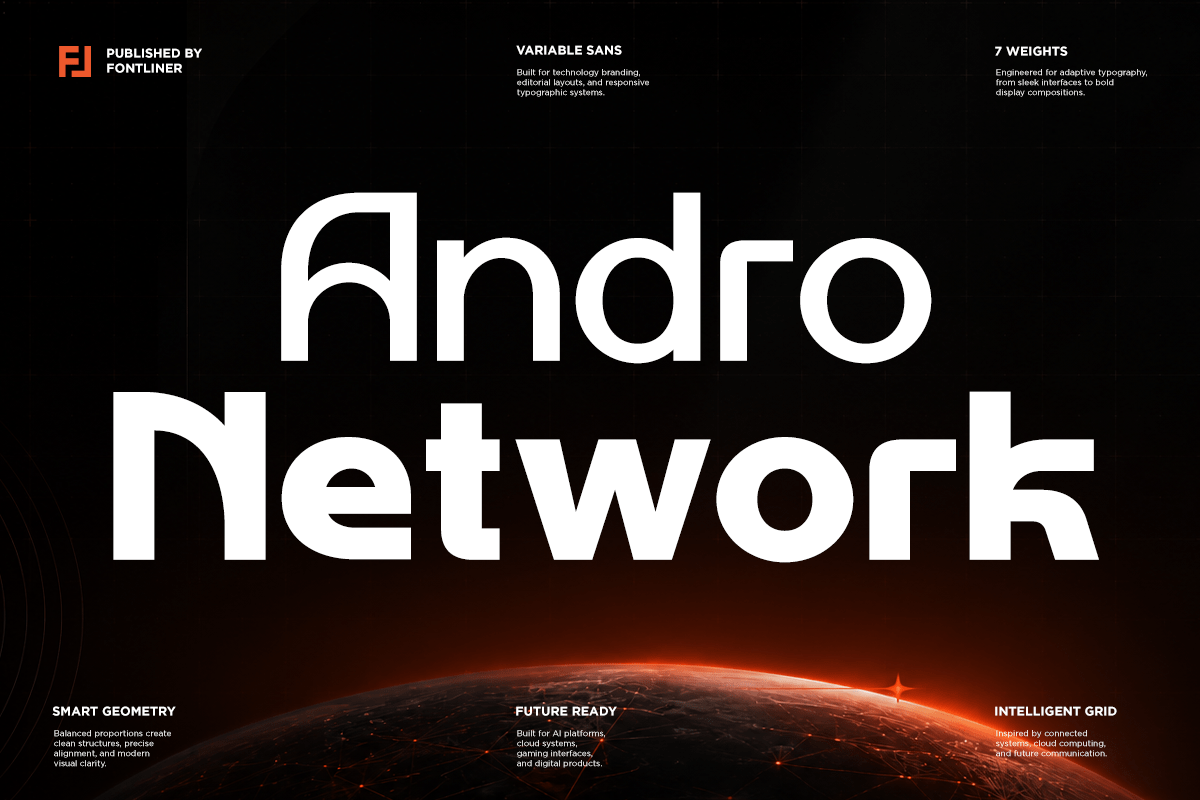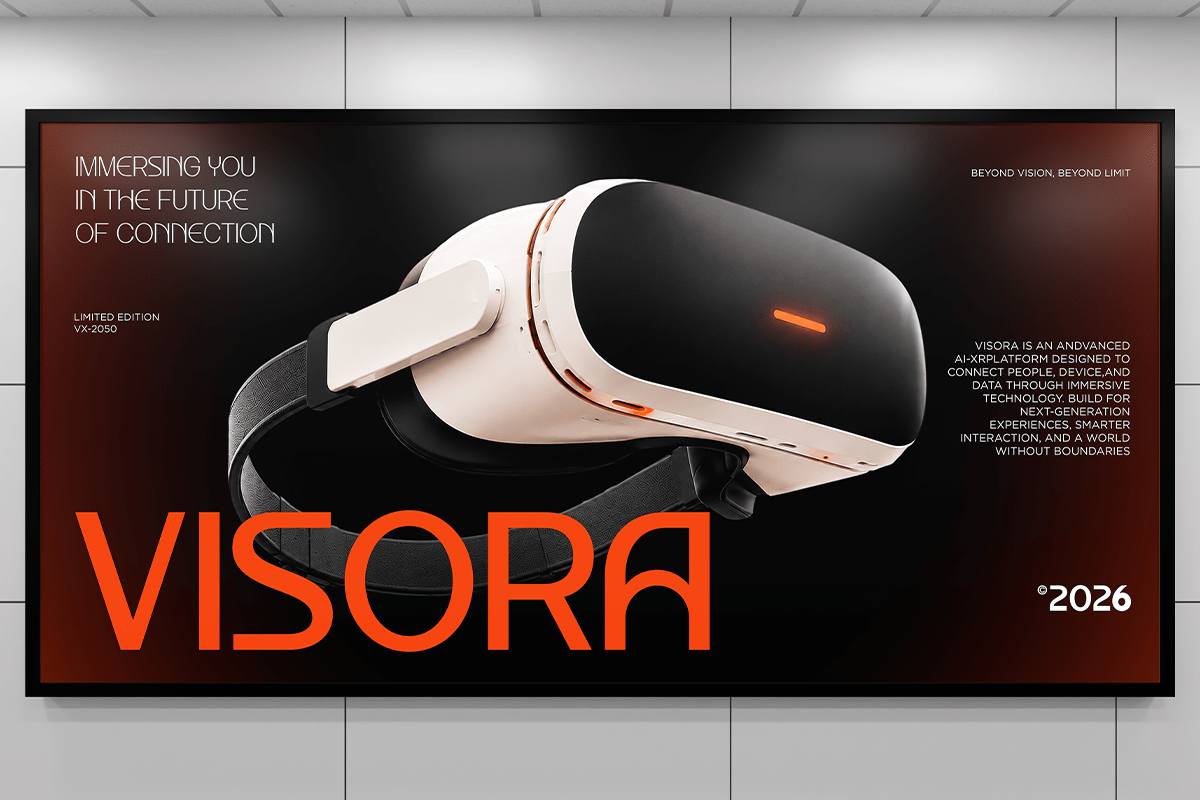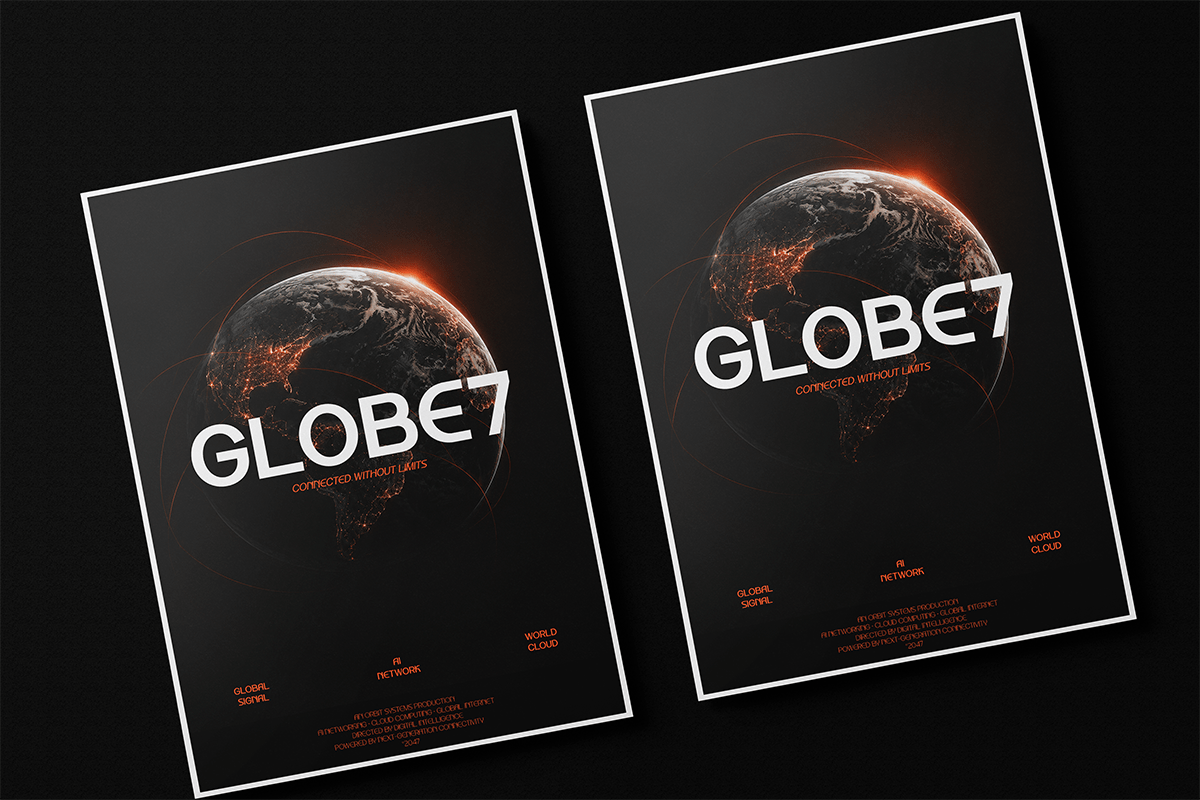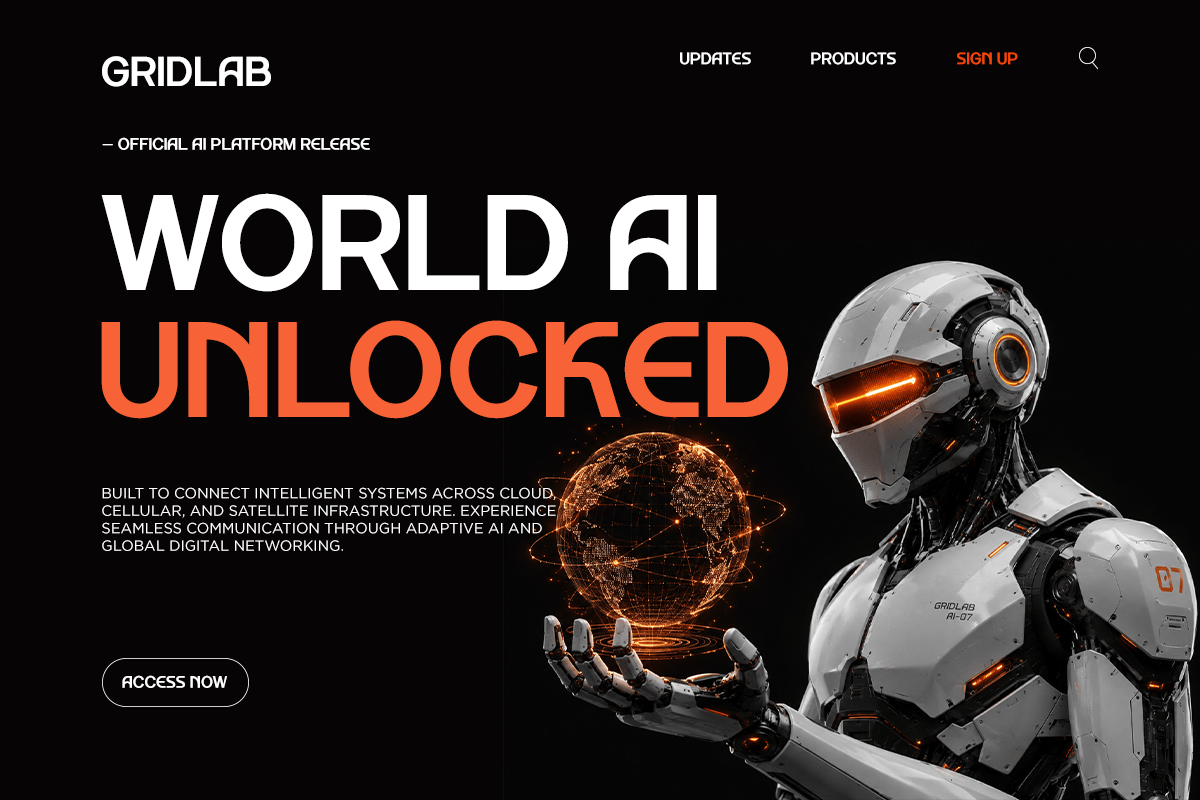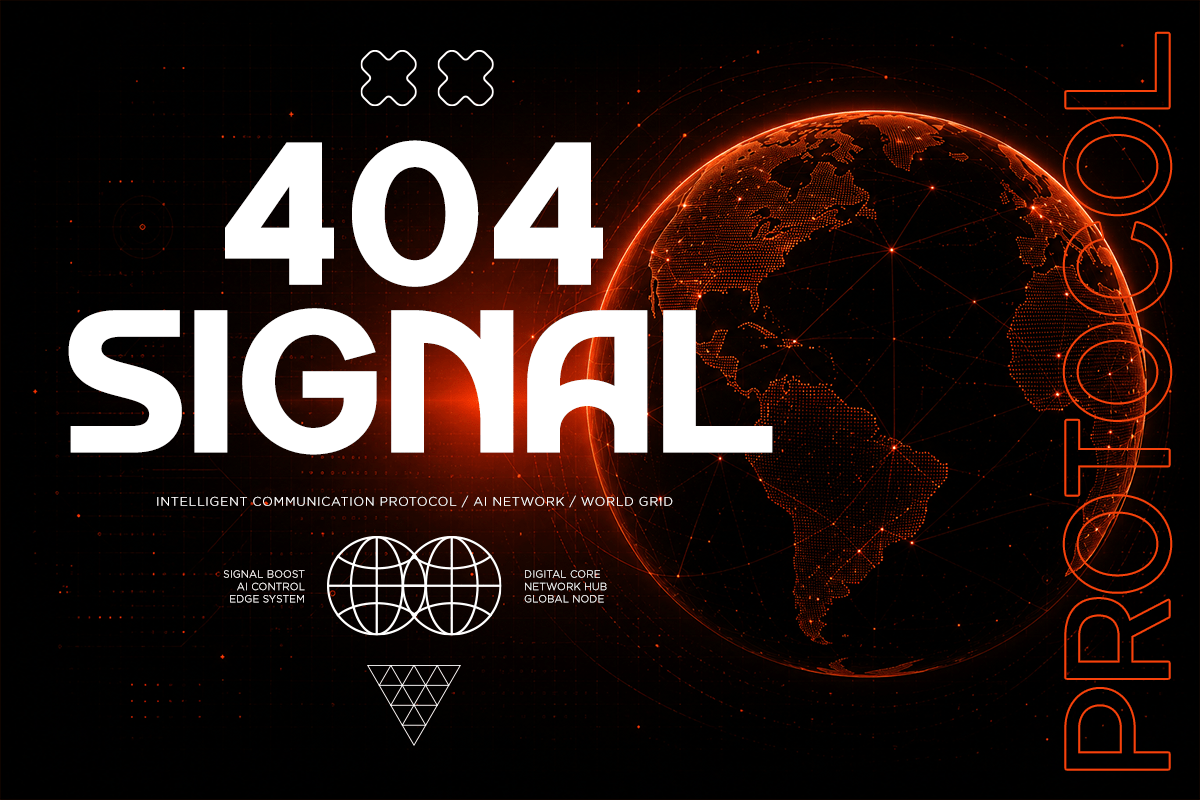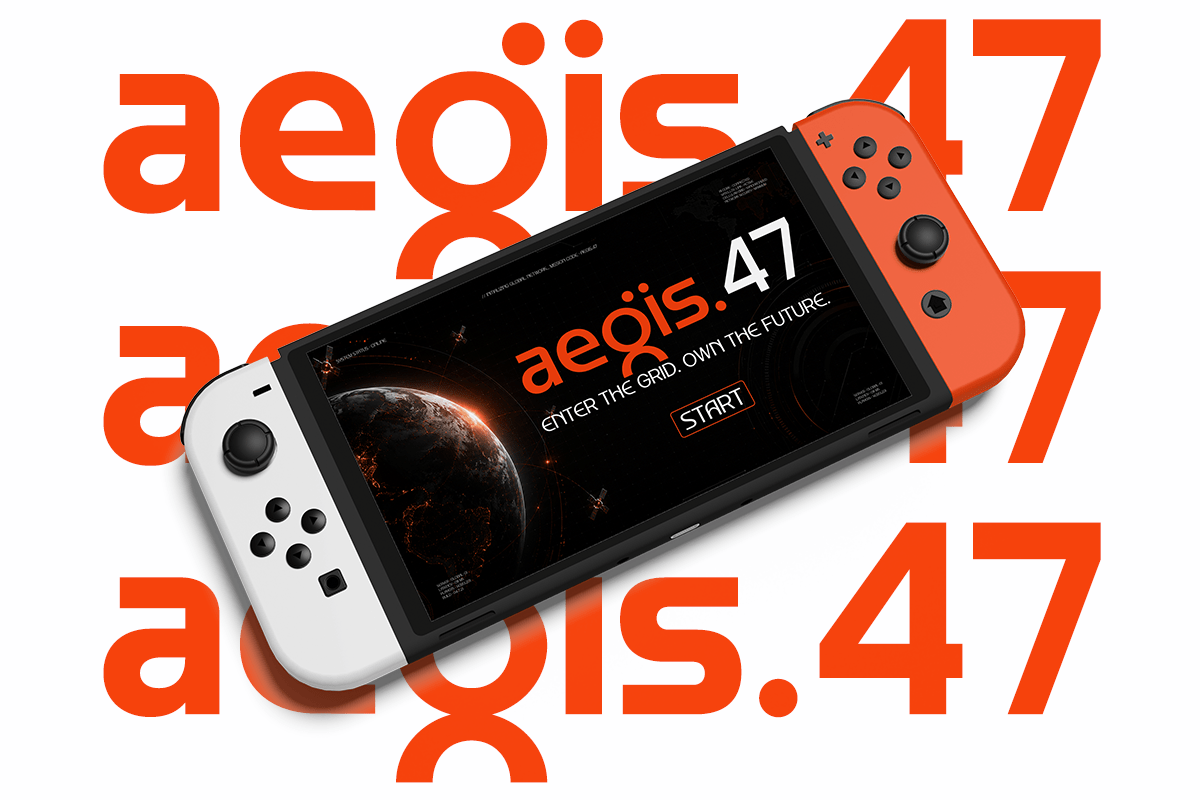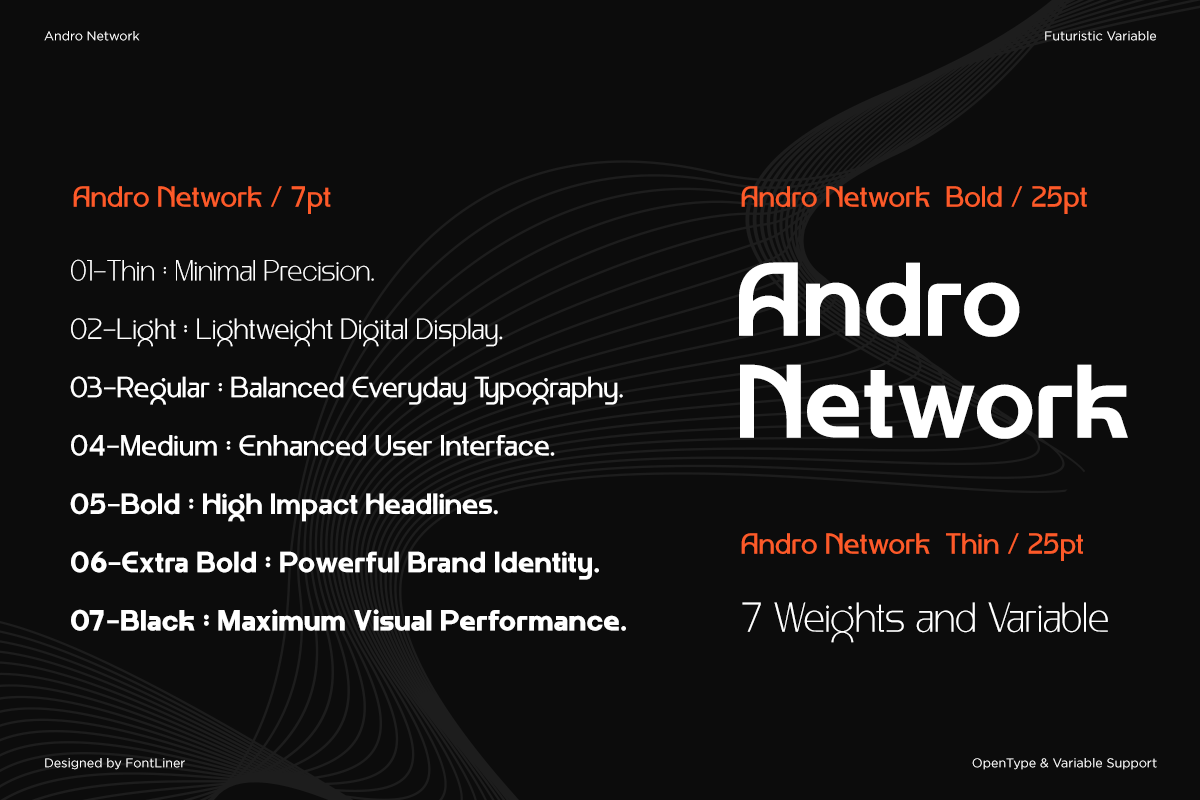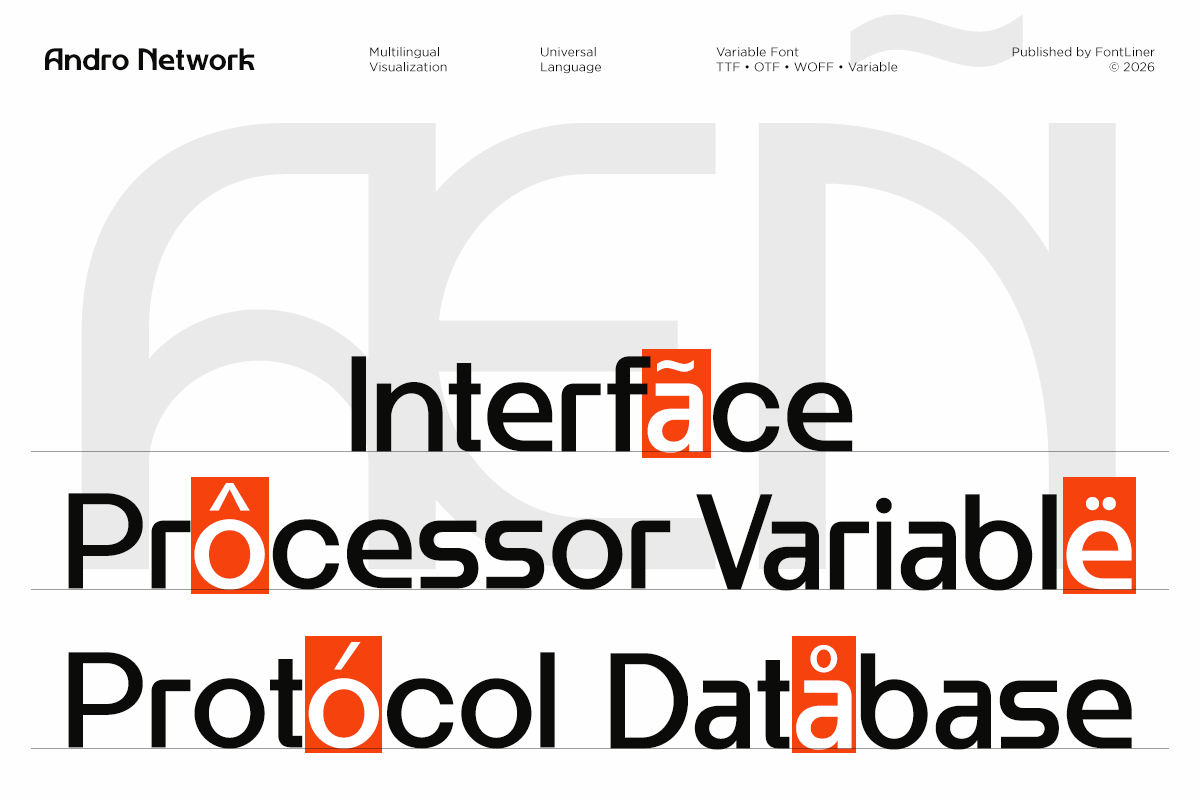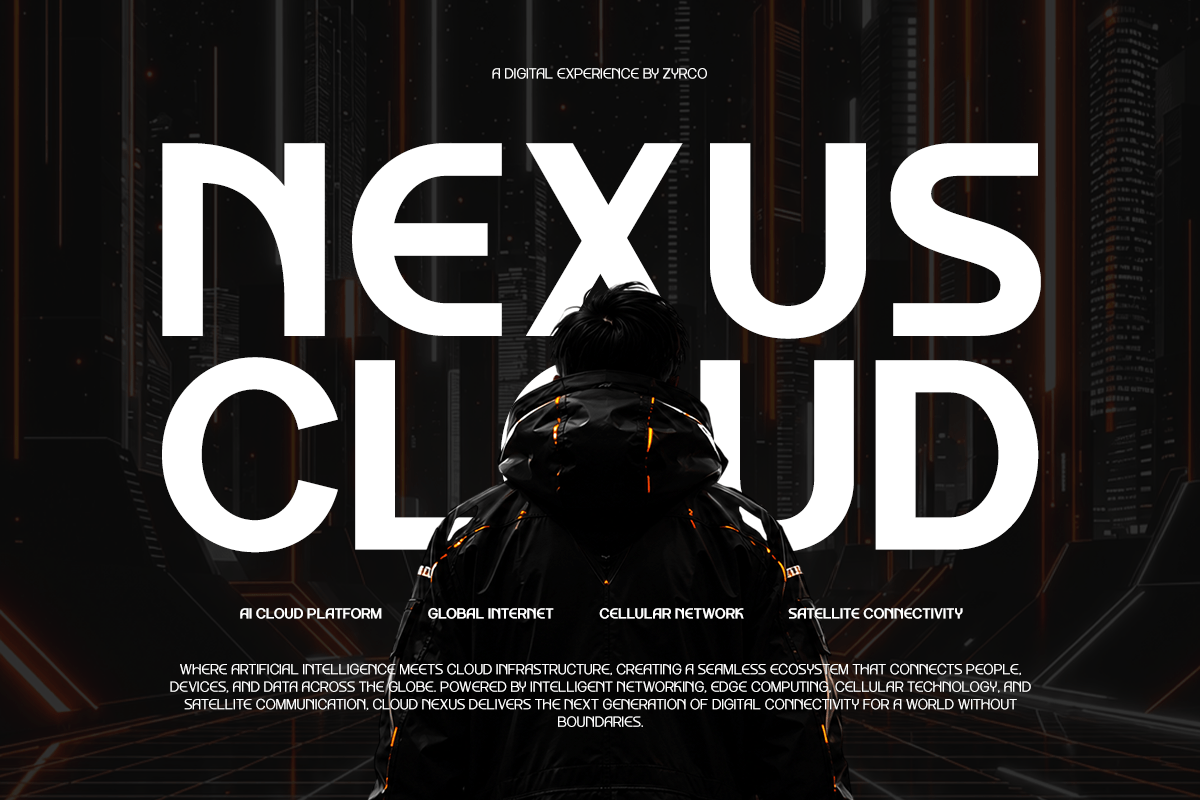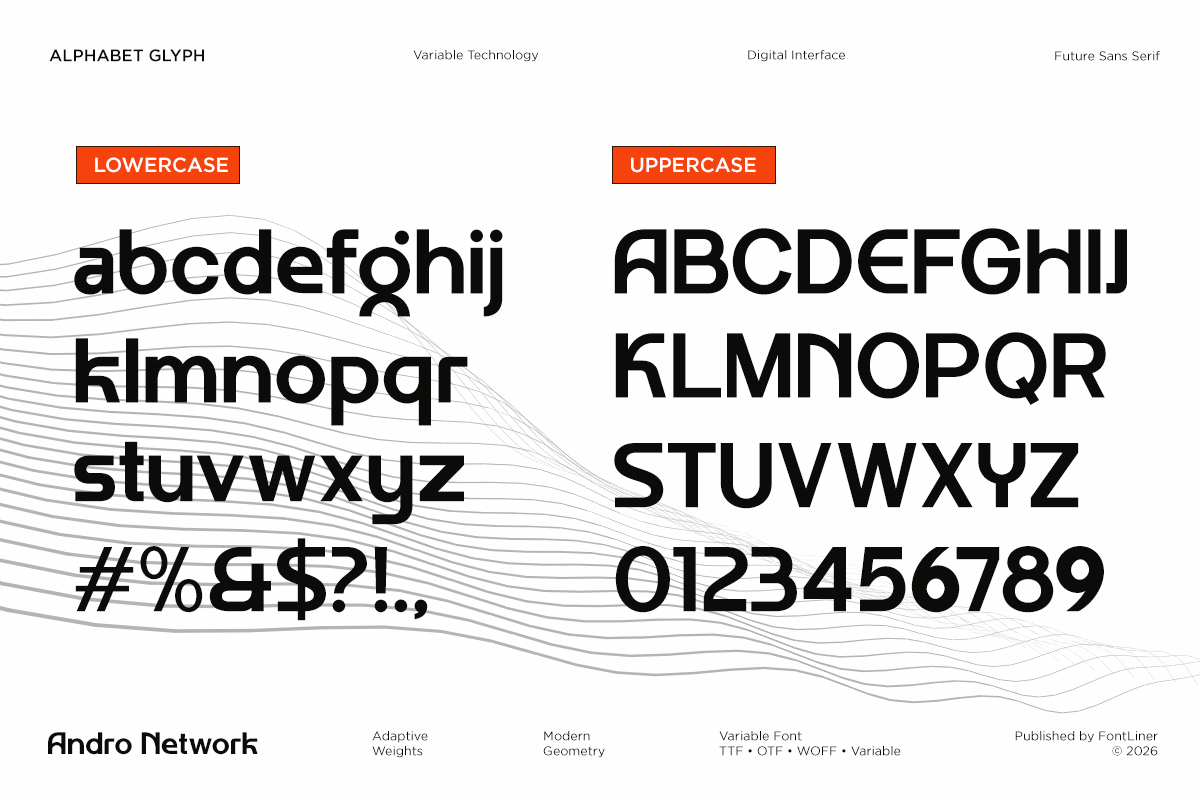
Andro Network – Futuristic Family Sans Font
Andro Network is a futuristic variable sans serif font family engineered for cutting-edge branding, digital interfaces, and high-impact typography. Inspired by advanced technology, artificial intelligence, cyber aesthetics, and modern industrial design, it combines clean geometric construction with bold futuristic character to create a powerful visual identity.
Designed for maximum flexibility, Andro Network includes a complete Variable Font alongside 7 static weights from Thin to Black, each with matching Italic styles. This versatile family allows designers to create everything from ultra-light minimalist layouts to heavy, commanding headlines while maintaining consistent visual harmony.
Perfect for branding, technology startups, AI projects, gaming, esports, automotive, UI/UX design, websites, editorial layouts, posters, packaging, product launches, motion graphics, social media, corporate identities, and futuristic visual systems. Whether you’re designing for digital products or premium print applications, Andro Network delivers exceptional readability with a bold contemporary presence.